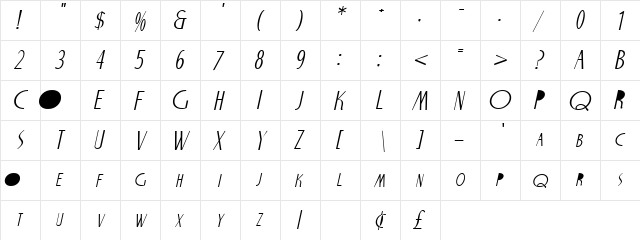
Zwieback Oblique
Design Context for Zwieback Typeface
Zwieback offers clean, dependable letterforms without strong stylistic allegiance, making it a practical choice for designers who need flexibility. The slanted form adds forward momentum and visual energy.